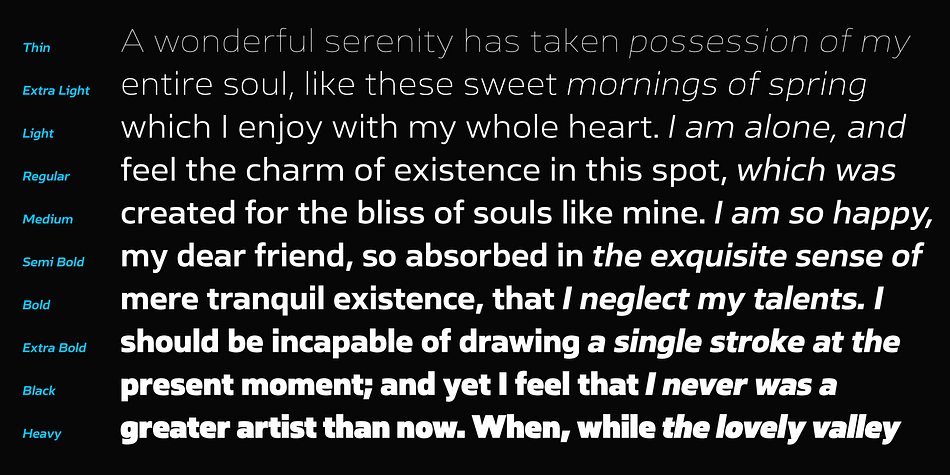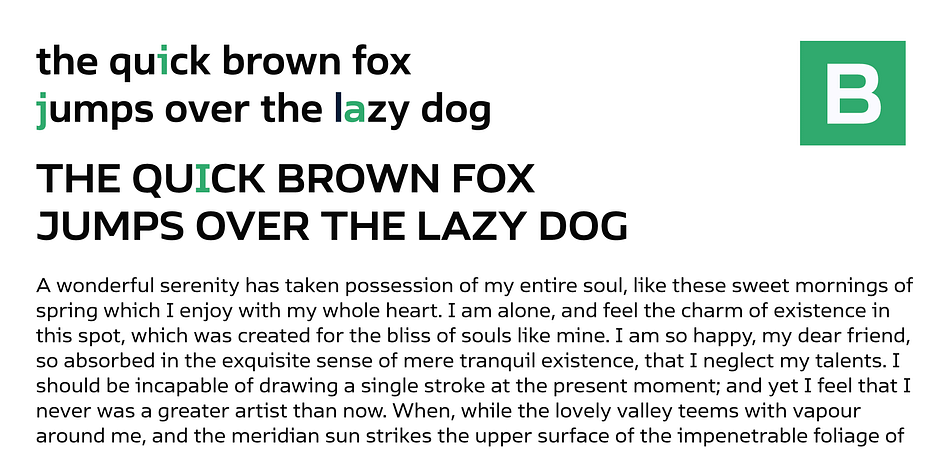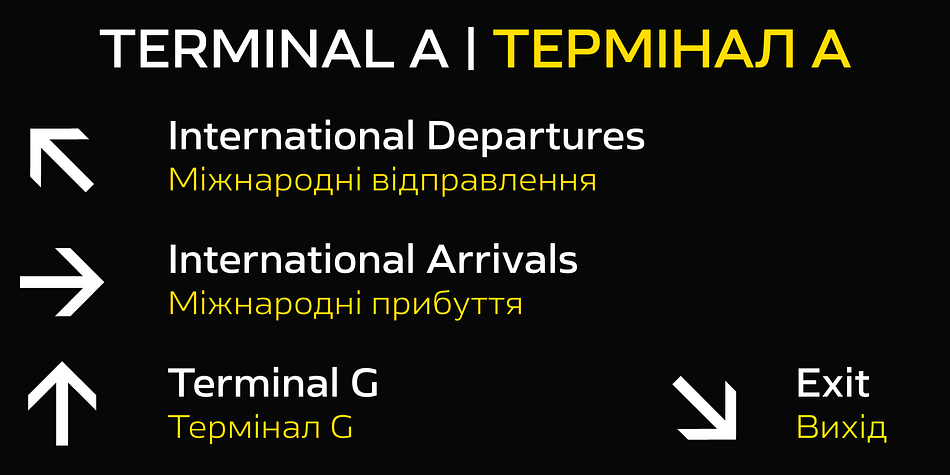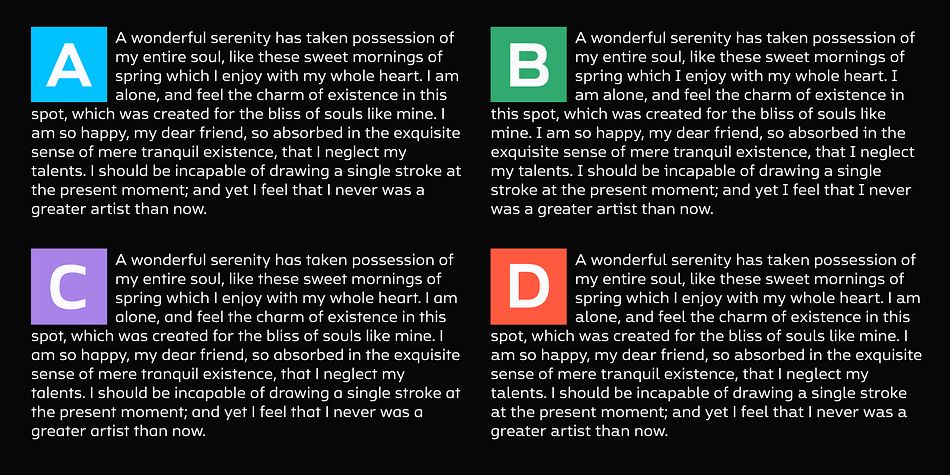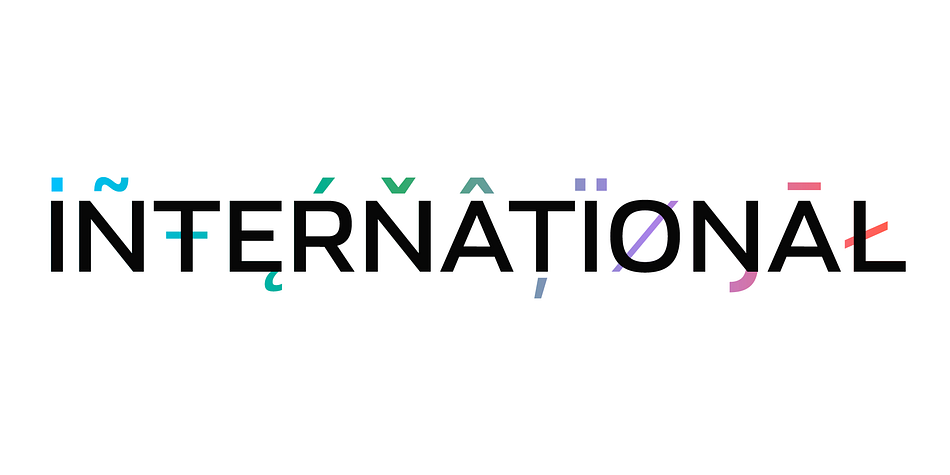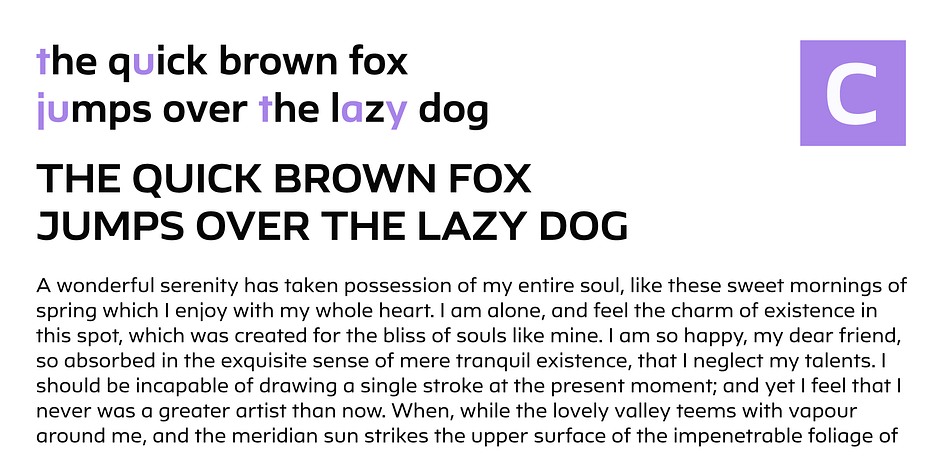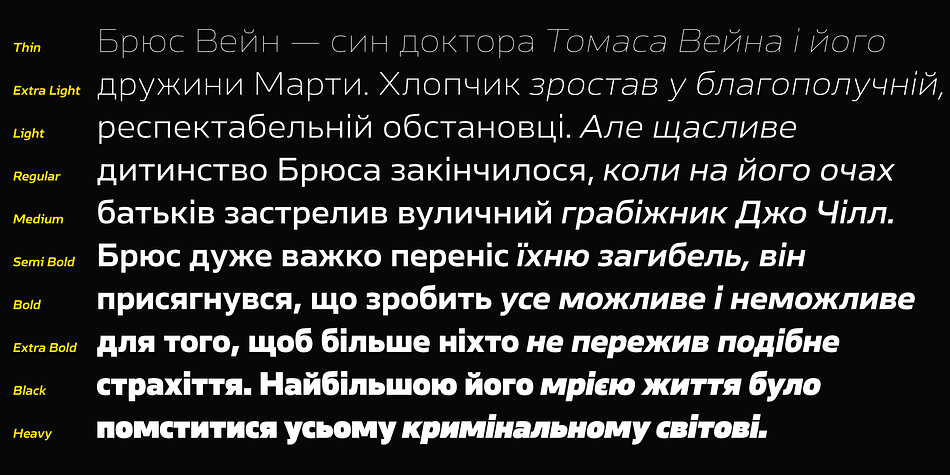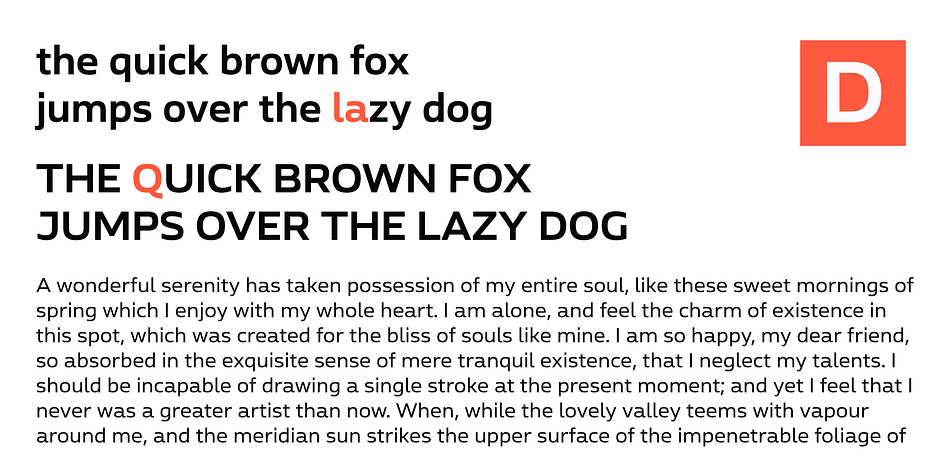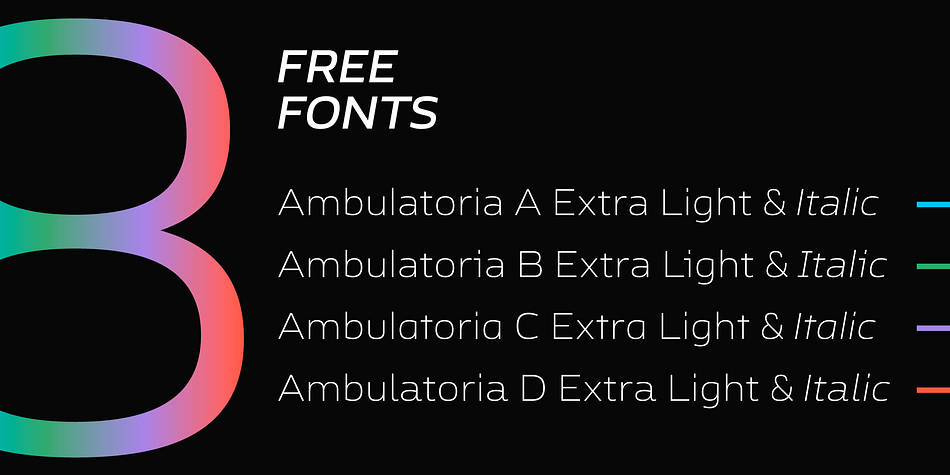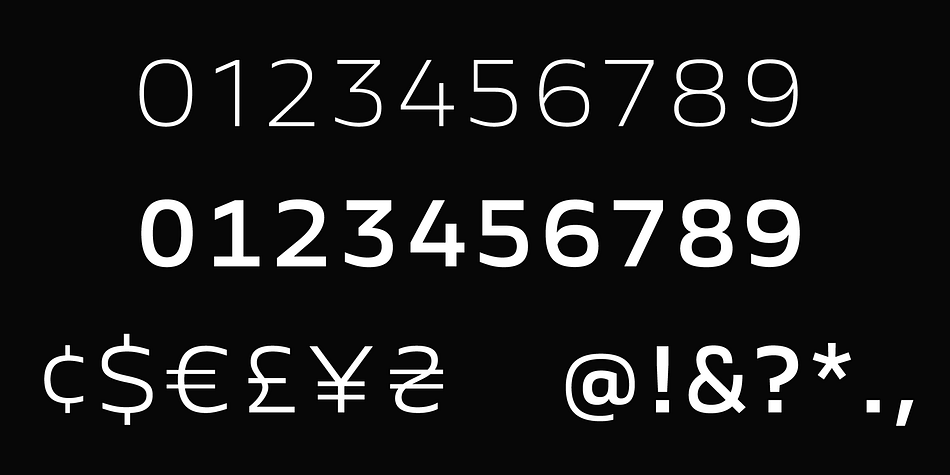
Ambulatoria B is a sans serif font family. This typeface has twenty styles and was published by Pepper Type.
Ambulatoria is a sturdy open aperture sans-serif that comes in four variations. Each variation, A, B, C, and D, contains alternative variants for certain glyphs that allow the designer to change character and texture of the text.
The font family contains 80 fonts altogether, each sporting rich language support including pan-European Latin and Cyrillic. The typeface is intended to work in both large and small text sizes, which makes it a versatile workhorse.